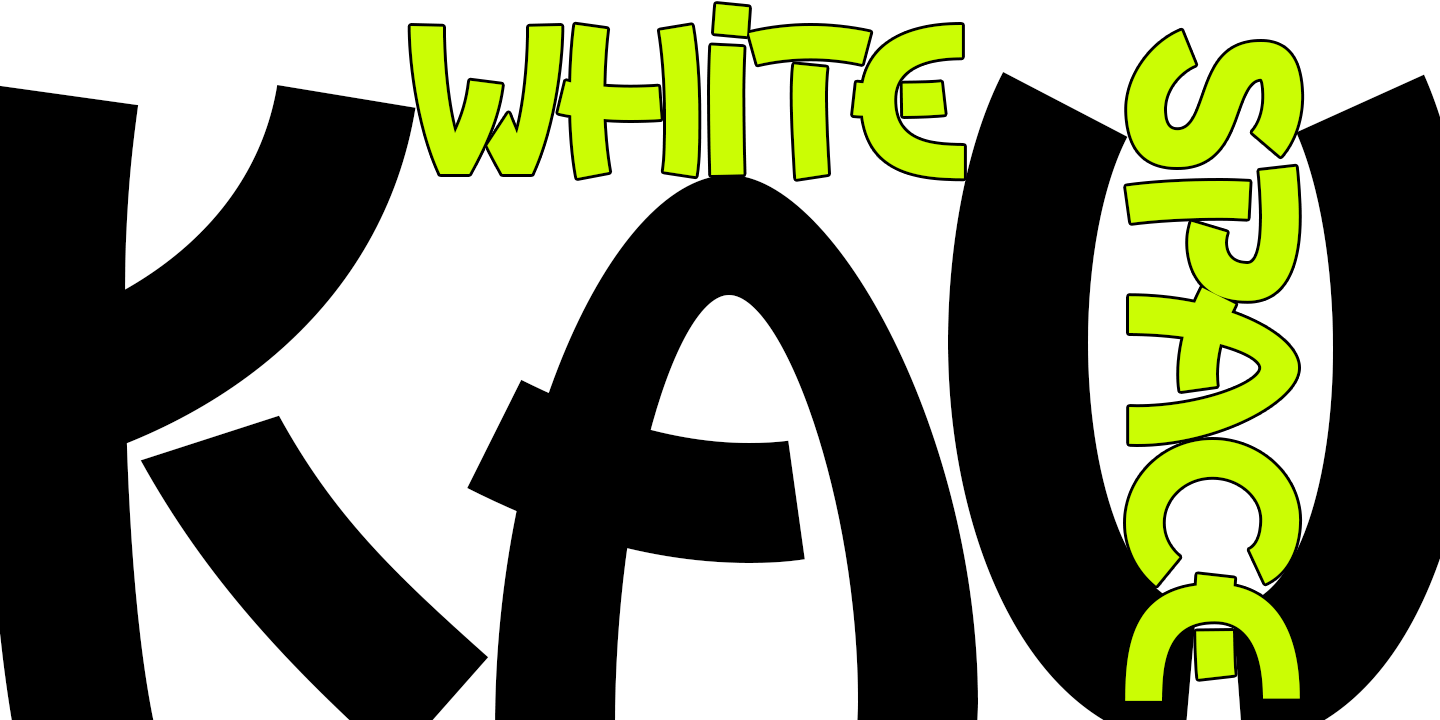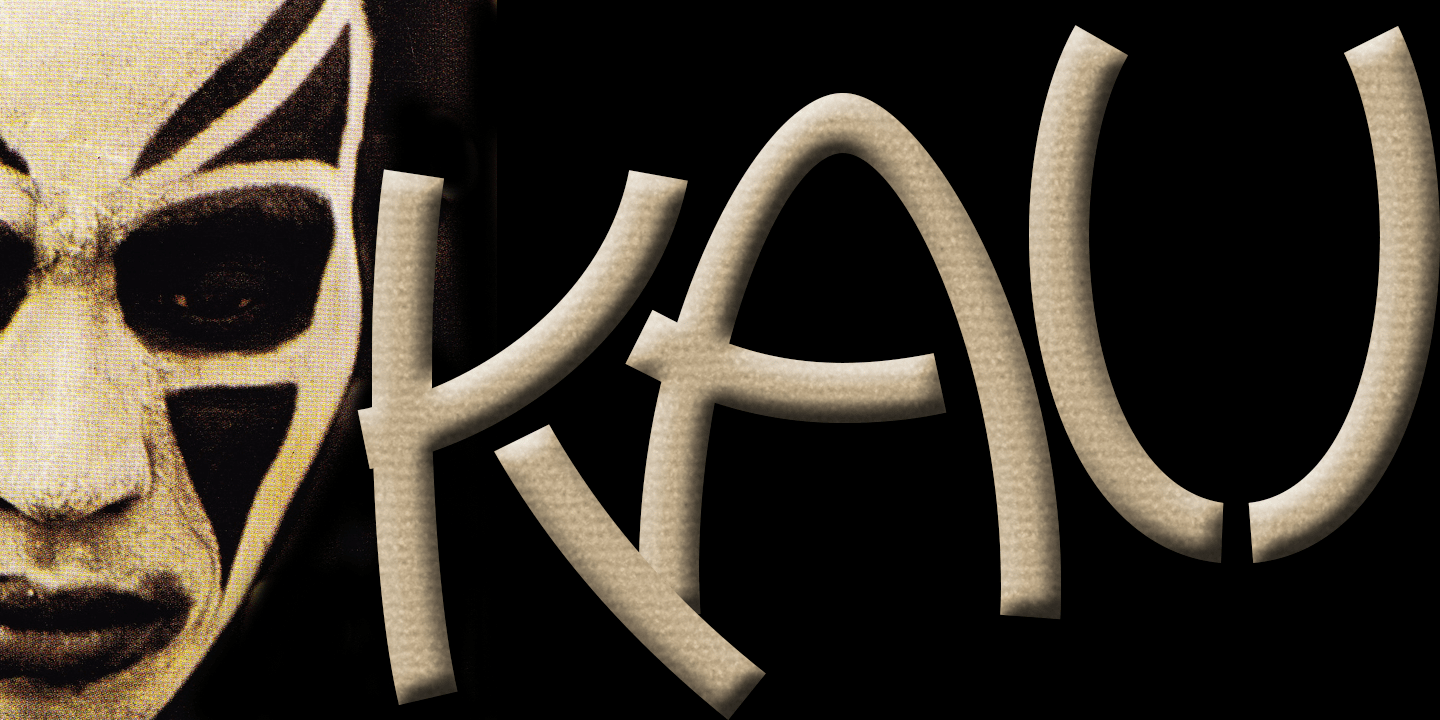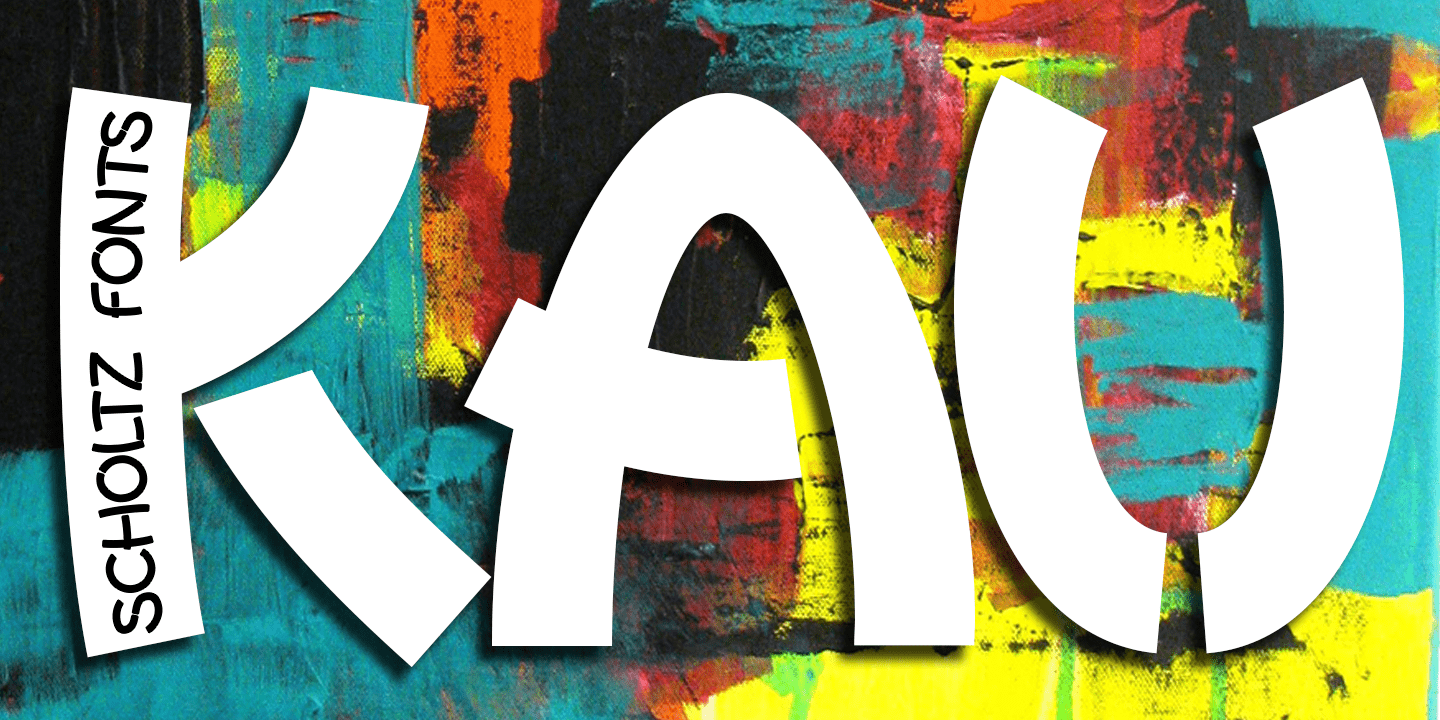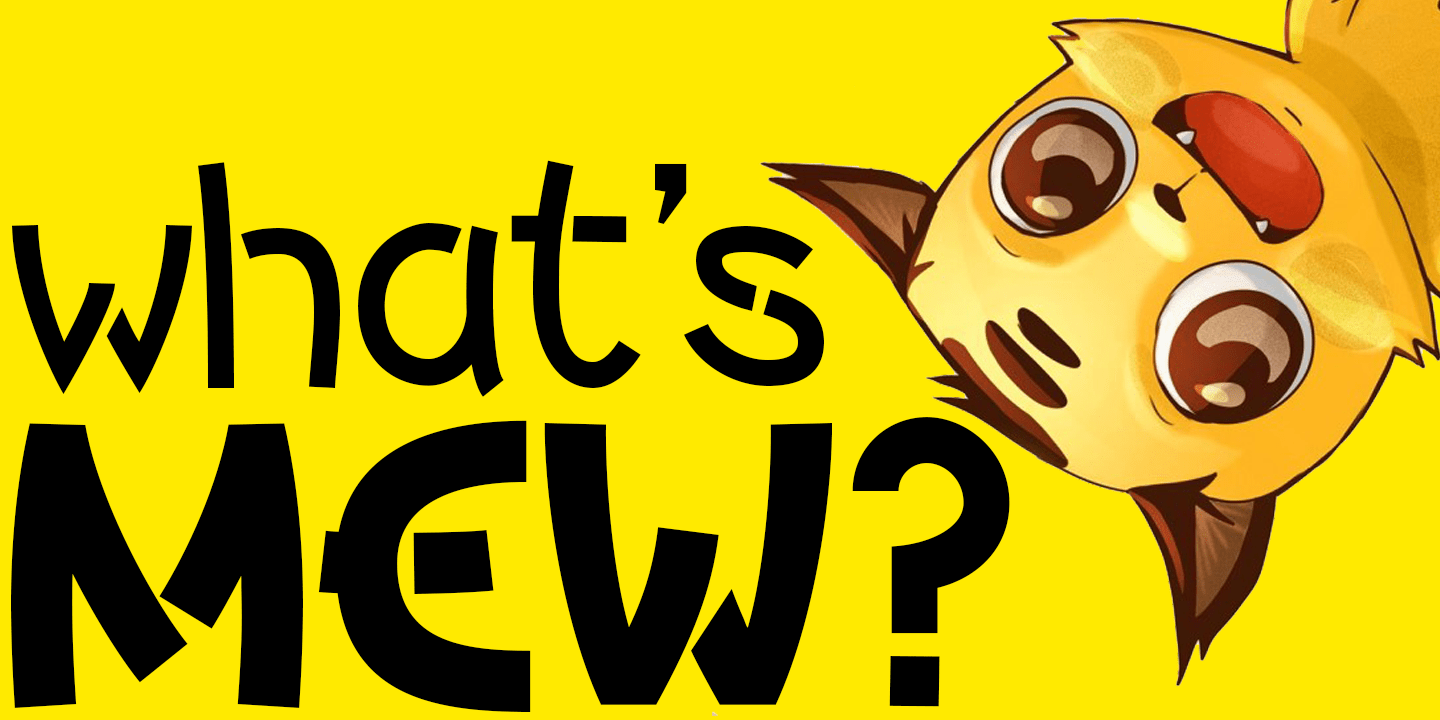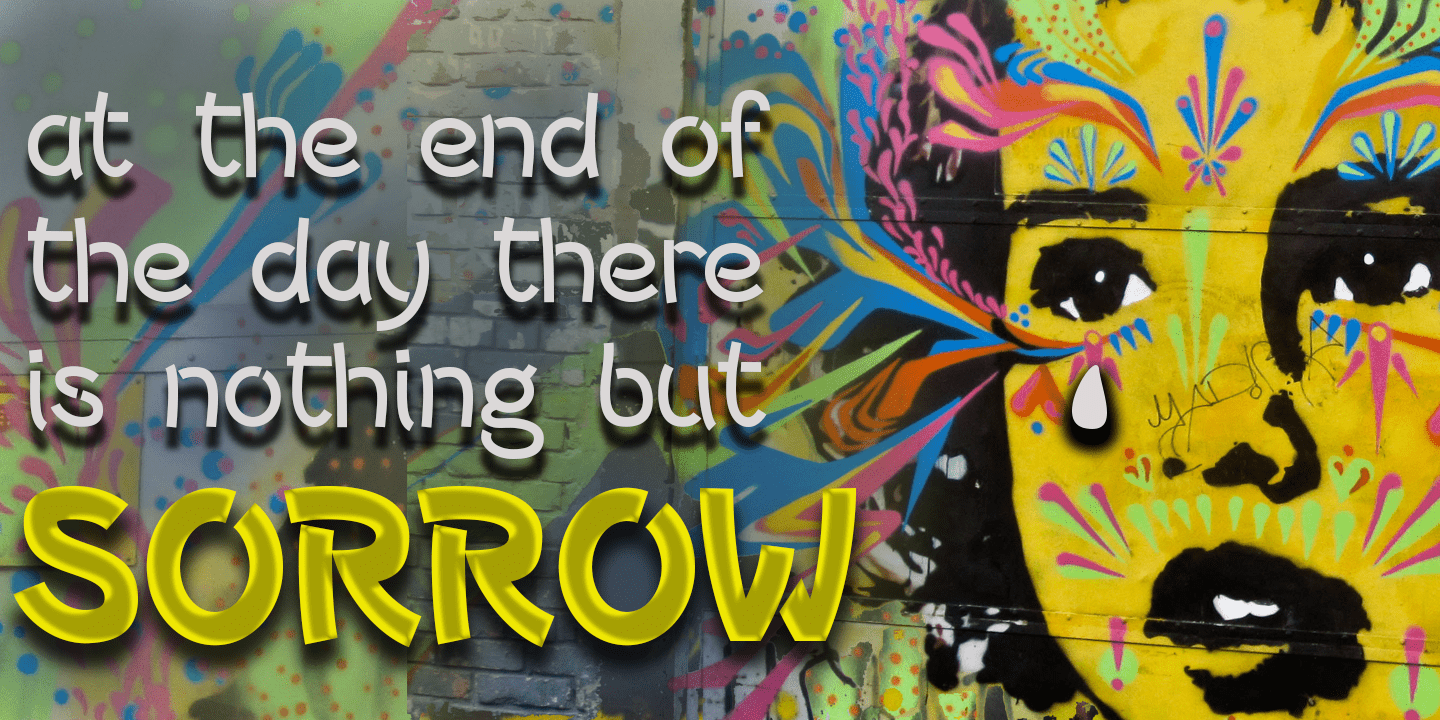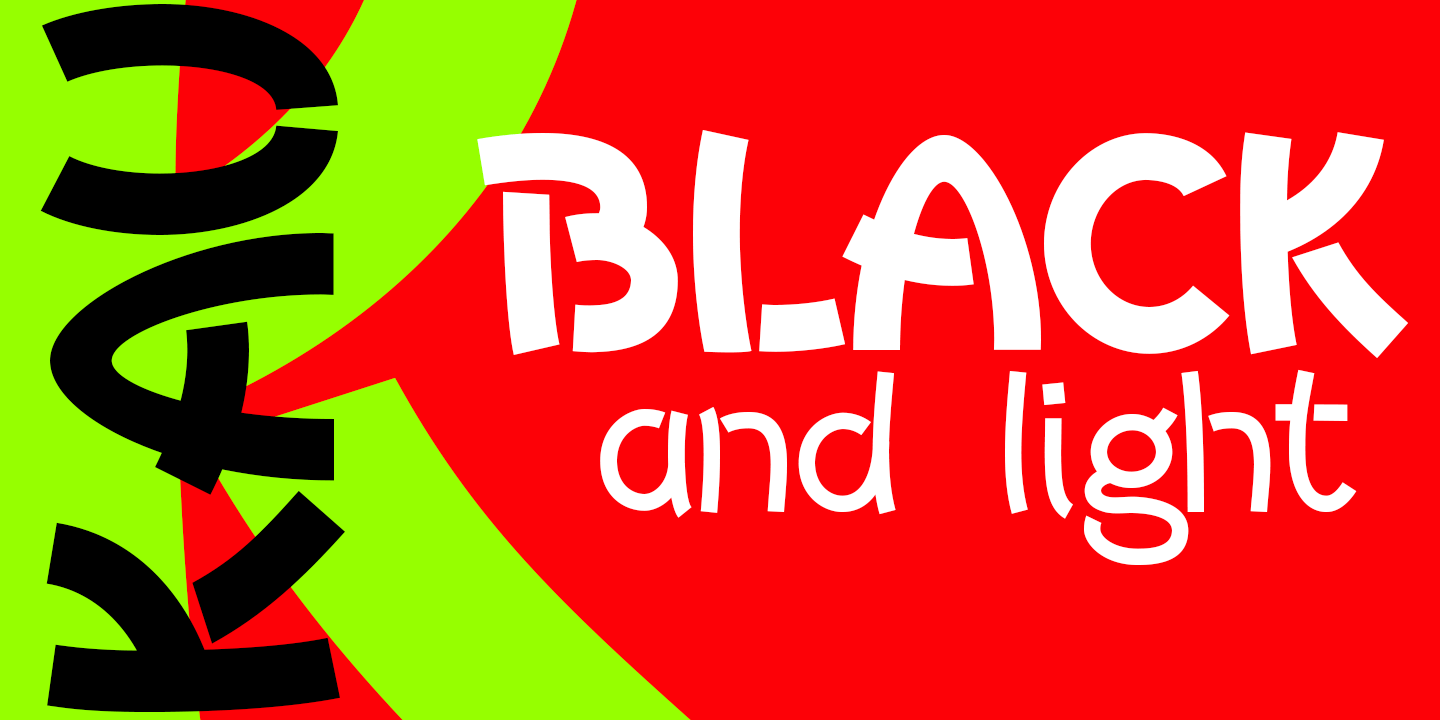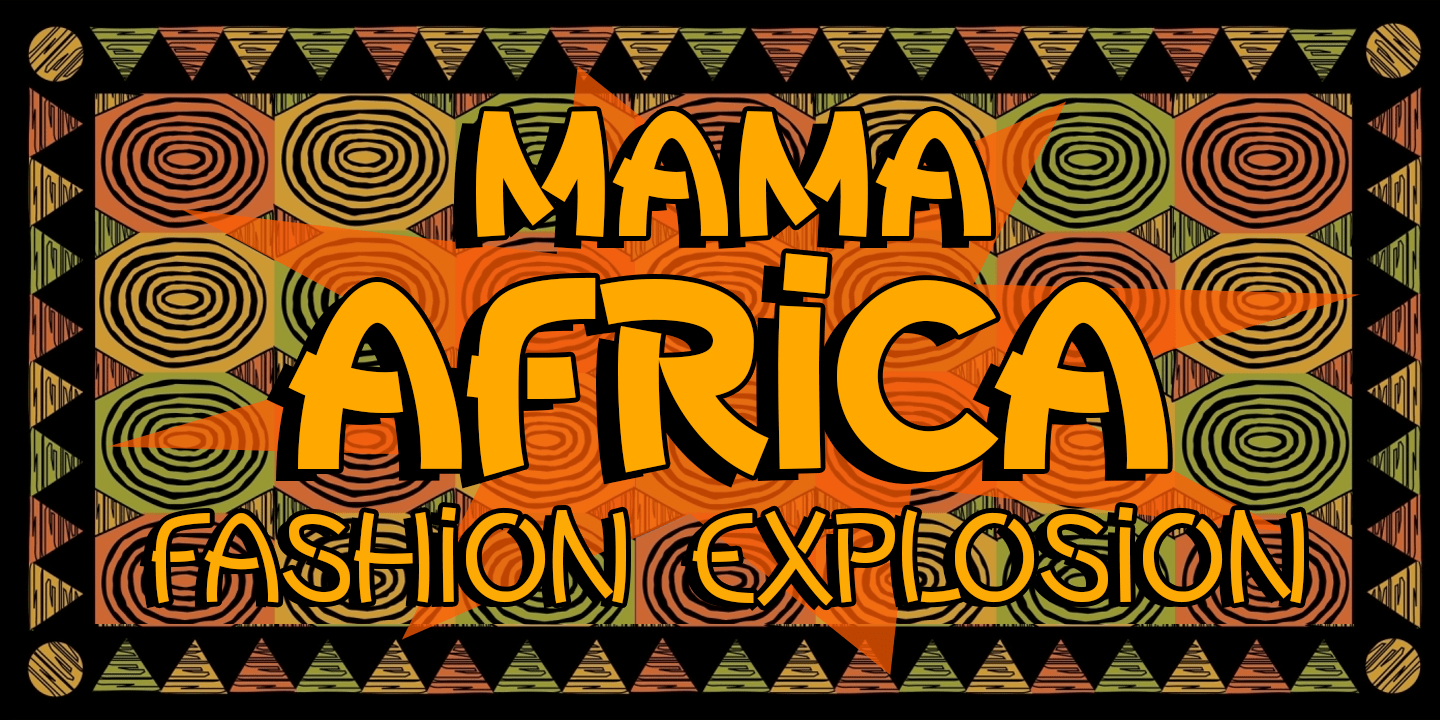
Kau
Font Family by Scholtz Fonts
Kau is a quirky, sans serif display font in two weights. Its funky, stencilled outline bursts onto the page with in-your-face energy, just demanding to be noticed.
Kau Black is big and bold, specially crafted for posters, headlines, ads and logotypes. Kau Light forms a perfect foil - clear, skinny and edgy.
Use the two together, in a contrasting explosion of form, to create exciting contrasts and vibrant designs The font has all the features of a fully professional typeface. Language support includes all European character sets.